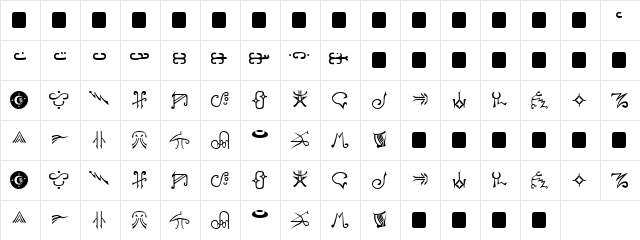
Harpers Normal
Design Context for Harpers Typeface
Harpers is a composed and adaptable typeface that performs quietly and consistently across a wide range of design contexts.